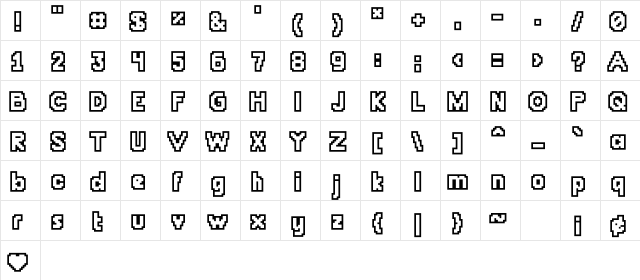
ChunkyDunkOutlin Medium Font Preview
ChunkyDunkOutlin Medium
Design Context for ChunkyDunkOutlin Typeface
ChunkyDunkOutlin is a composed and adaptable typeface that performs quietly and consistently across a wide range of design contexts.